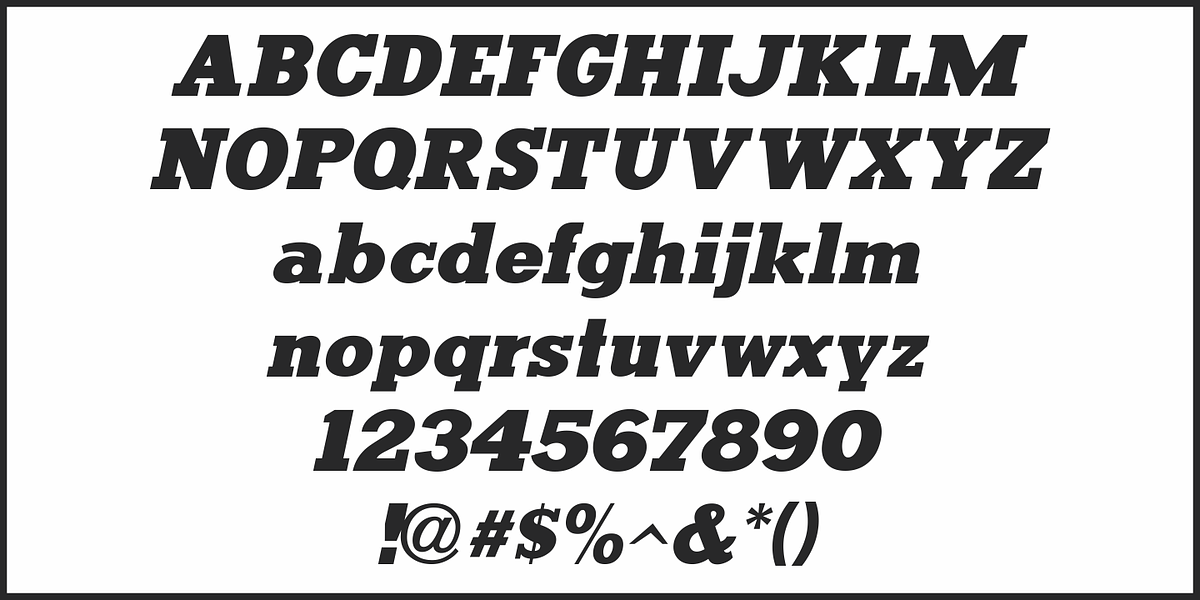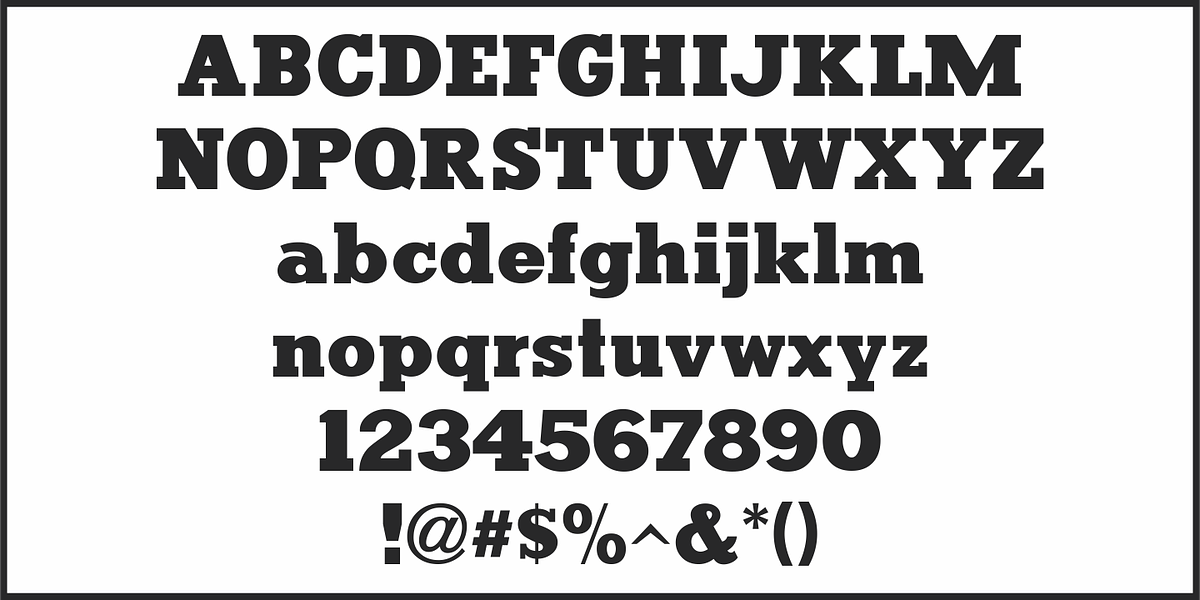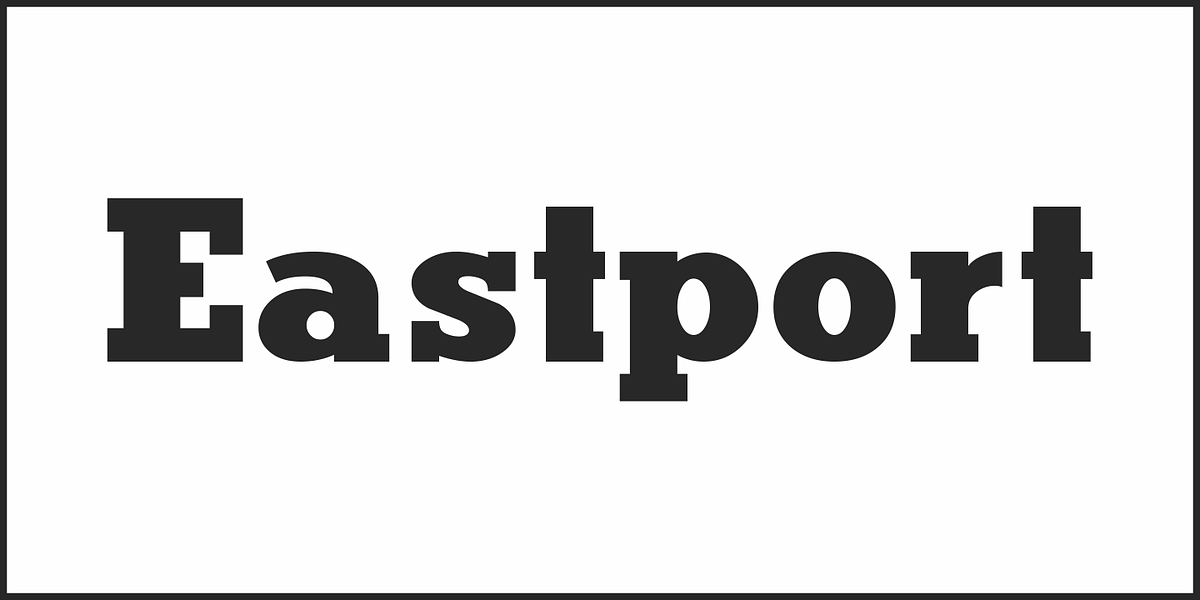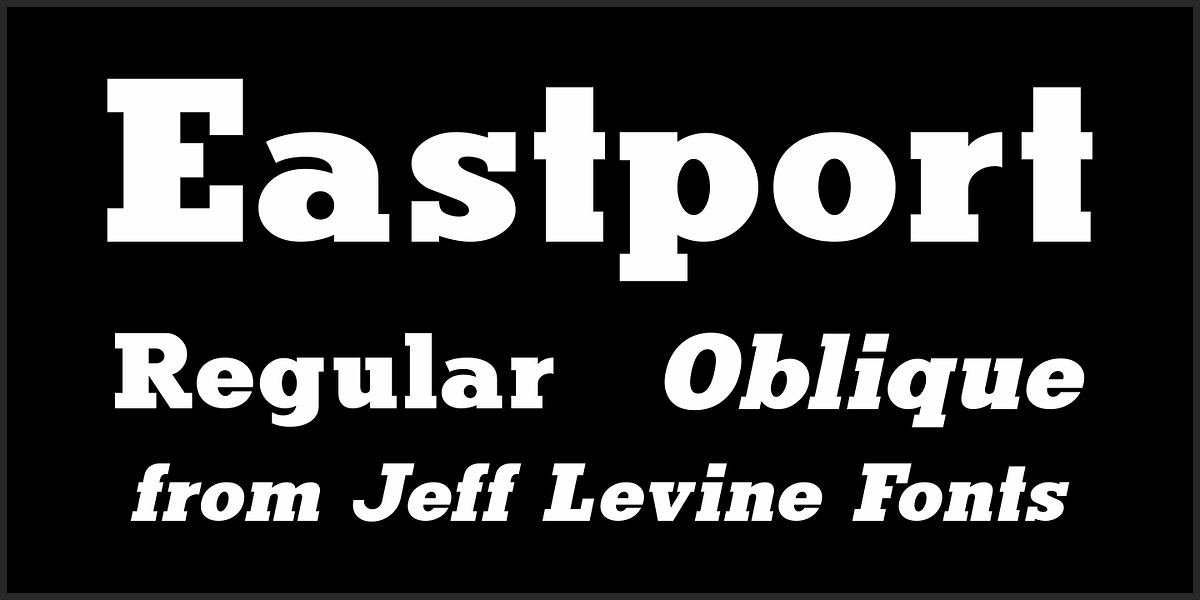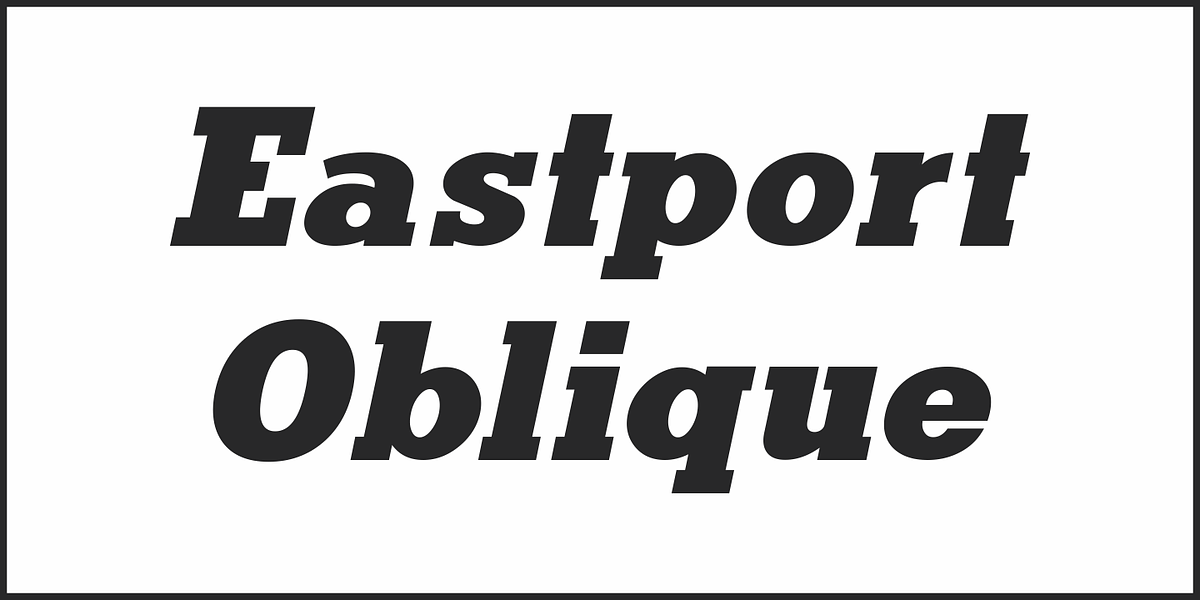
Eastport JNL
Eastport JNL is the interpretation by Jeff Levine Fonts’ of the classic Stymie Extra Bold (a/k/a Stymie Black), designed in 1931 for American Type Founders by Morris Fuller Benton.
Stymie and the somewhat similar Beton were both derivations of the popular European typeface Memphis.
Eastport JNL is available in both regular and oblique versions.